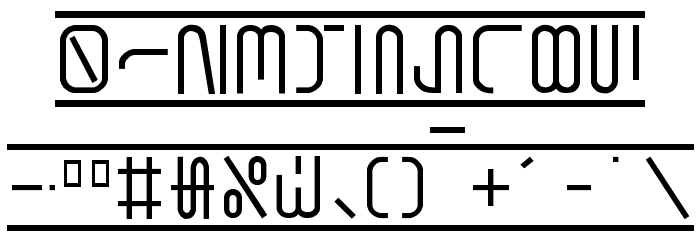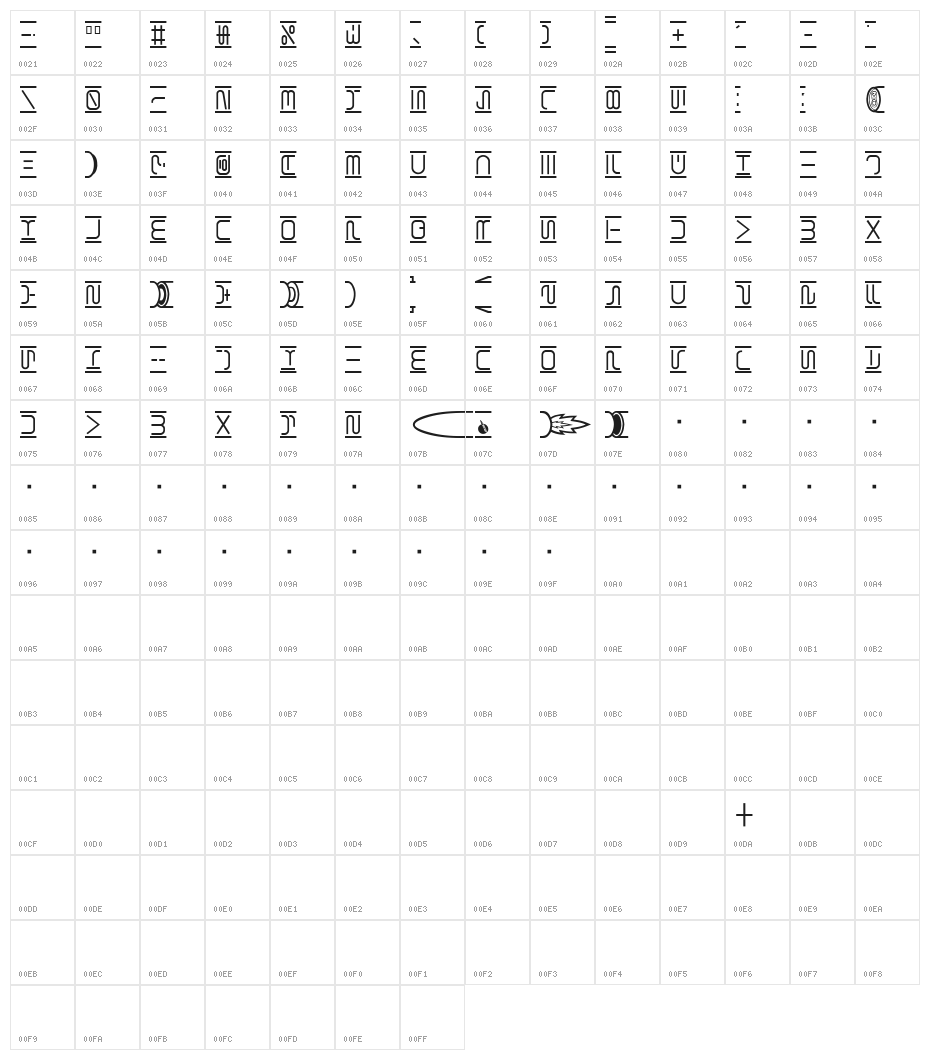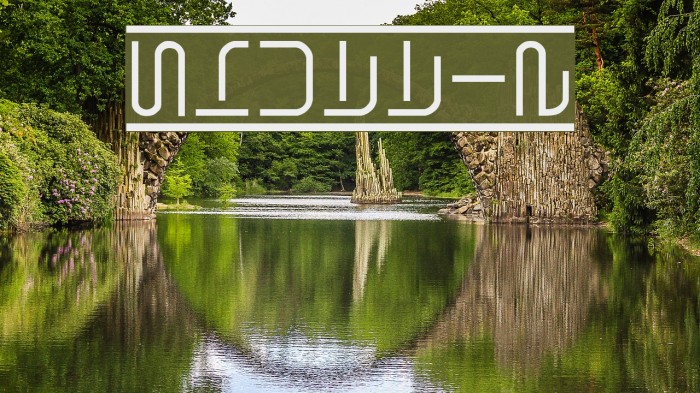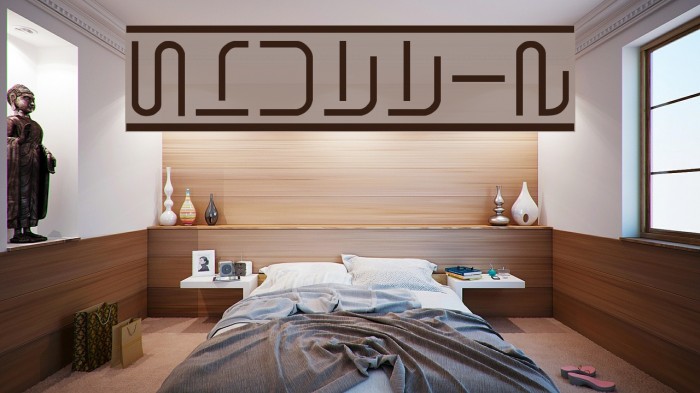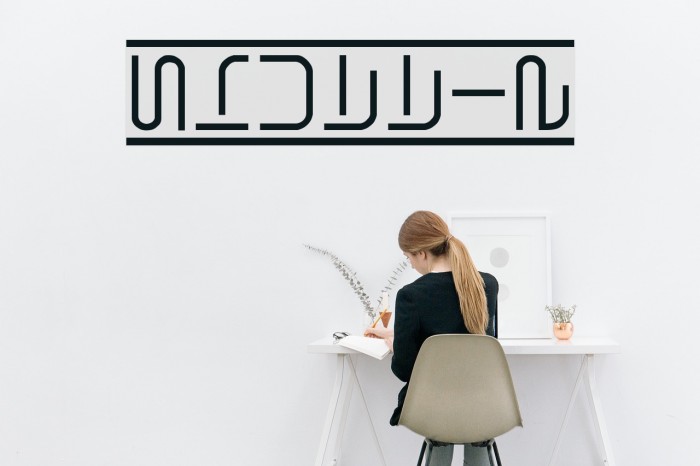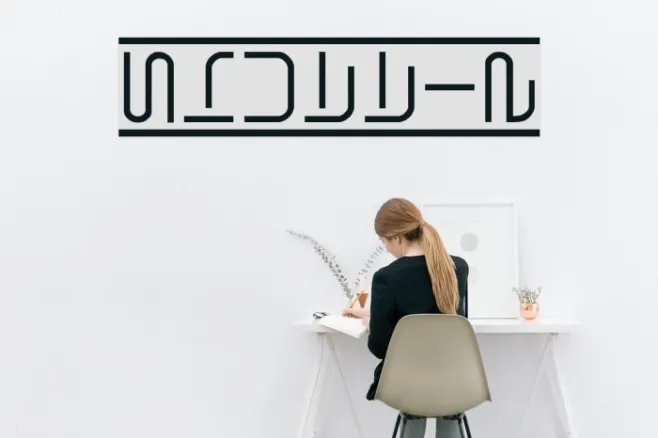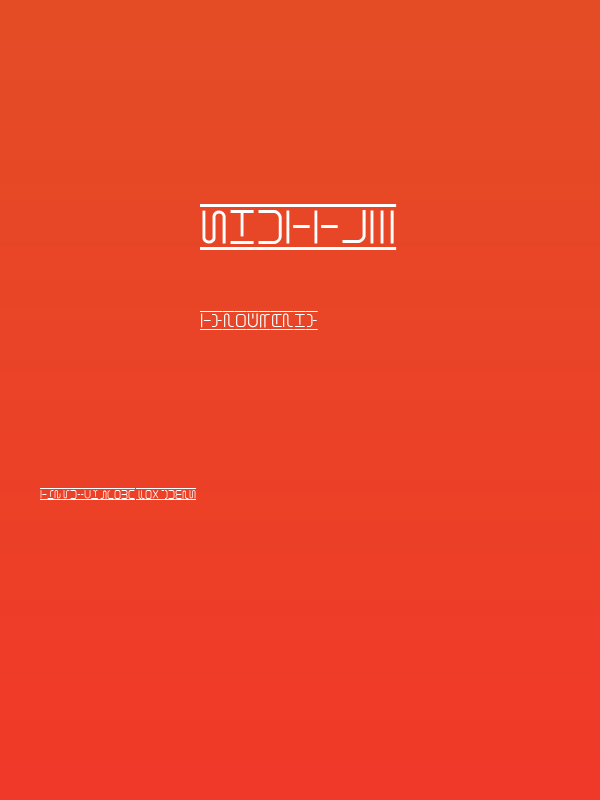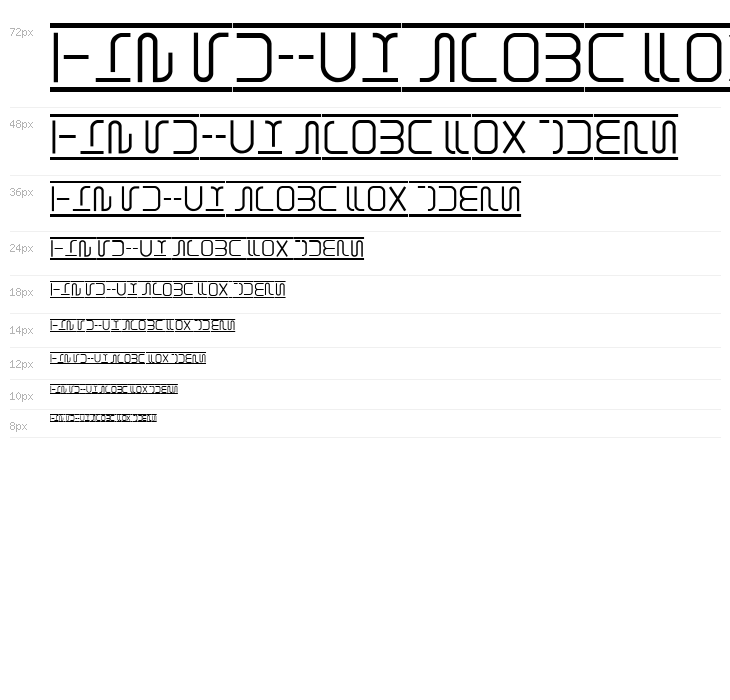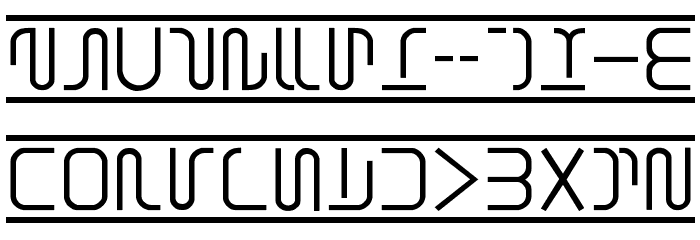
Shuttle Font
Shuttle Description
This font features a futuristic and geometric design, characterized by its clean lines and angular shapes. The characters are constructed with a consistent stroke width, giving it a monoline appearance. The font has a distinct digital or sci-fi aesthetic, reminiscent of circuit patterns or digital displays. The uppercase and lowercase letters maintain a uniform height, contributing to its modern and structured look. The numerals and special characters are designed to match the overall theme, with a focus on symmetry and balance. This font is ideal for projects that require a contemporary and tech-inspired style.
| Use Case | Logos, Headlines, Digital interfaces |
| Proposed Projects | Ideal for tech branding, digital interfaces, sci-fi themed designs, and modern advertising. |